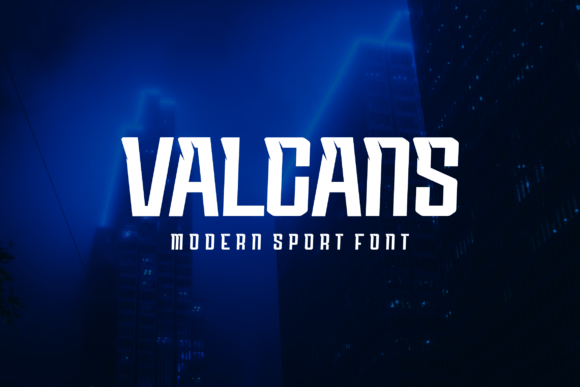
Welcome to the realm of digital artistry, where creativity meets innovation. Enter the world of Valcans Font – a modern font that shatters boundaries and captivates imaginations. Crafted by the visionary kalingga.albert, this masterpiece is a fusion of bold strokes and exquisite details, designed to leave an indelible mark in the realm of typography.
Step into a world where technology and aesthetics intertwine seamlessly. Valcans Font – Modern Font is not just a font; it's an experience. Its striking presence commands attention, leaving an unforgettable impression in both the digital and print realms. Unleash your creativity and embark on a journey where your designs take center stage, demanding the spotlight.
With Valcans Font – Modern Font as your creative companion, you'll discover a universe of possibilities. From logos that exude boldness to t-shirt designs that ooze personality, this font will elevate your projects to extraordinary heights. Dive into the world of gaming and let Valcans Font – Modern Font ignite your esport ventures with its dynamic energy. The possibilities are boundless, waiting for you to explore and conquer.
As you wield Valcans Font – Modern Font, prepare to witness your creations come to life with unparalleled brilliance. Its adaptability knows no bounds, effortlessly conforming to any project, any style, and any vision you may conjure. This font is your artistic chameleon, transforming your ideas into masterpieces that resonate with audiences worldwide.
But Valcans Font – Modern Font is more than just a versatile tool; it's a gateway to a world of inspiration. Its bold strokes ignite the imagination, inviting you to push boundaries and explore uncharted territories of design. Let this font be your muse, guiding you towards creative breakthroughs and leaving an everlasting legacy in the world of digital art.